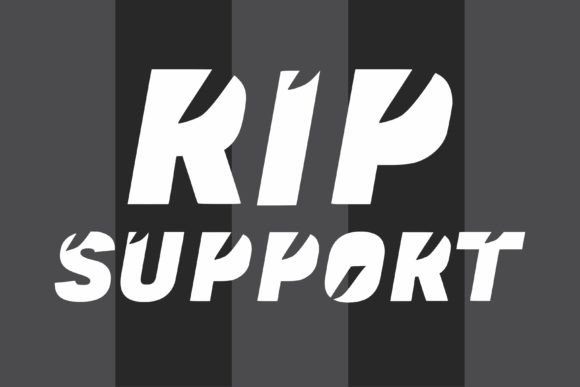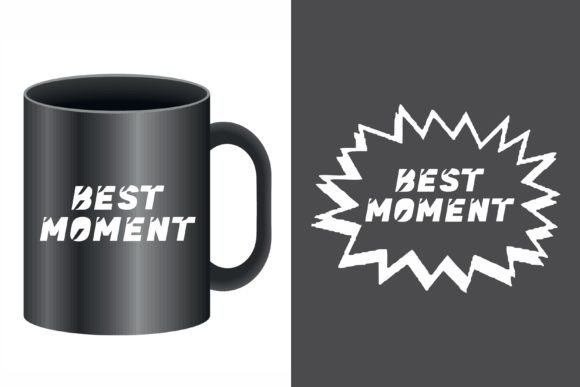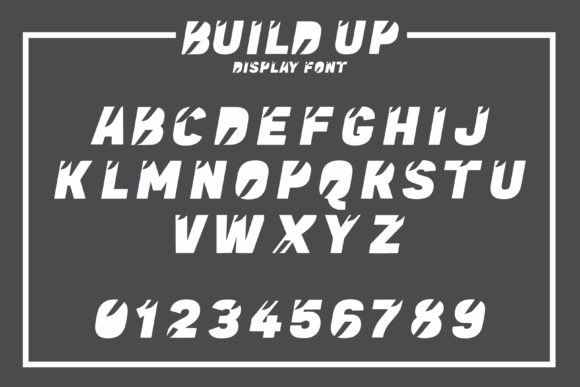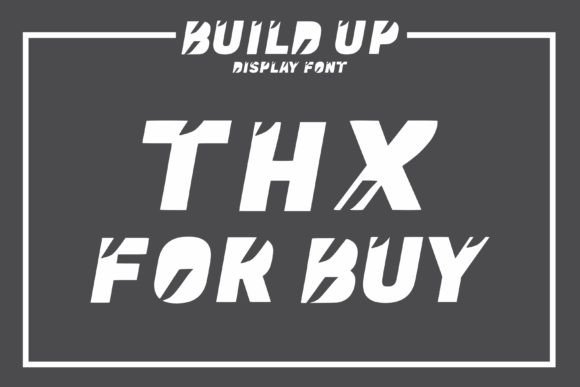
Introducing Build Up Font: The Ultimate Display Font for Confident Designs
Are you tired of using the same old fonts in your designs? Do you want to add a touch of confidence and personality to your projects? Look no further than Build Up Font, a cool and modern display font that’s sure to take your designs to the next level.
What is Build Up Font?
Build Up Font is a striking display font that exudes a strong and confident personality. With its unique details on each side of the lettering, this font is perfect for designers who want to make a statement. Whether you’re working on a logo, a headline, or a title, Build Up Font is sure to grab attention and leave a lasting impression.
Key Features of Build Up Font
- Unique and Striking Details: Build Up Font features striking details on each side of the lettering, giving it a distinctive and eye-catching look.
- Cool and Modern Design: This font has a cool and modern aesthetic that’s perfect for designers who want to create fresh and contemporary designs.
- Strong and Confident Personality: Build Up Font evokes a strong and confident personality, making it perfect for designs that require a bold and assertive look.
- Versatile and Easy to Use: This font is easy to use and can be applied to a wide range of design projects, from logos and headlines to titles and more.
Why Choose Build Up Font?
So why choose Build Up Font over other display fonts? Here are just a few reasons:
- Stand Out from the Crowd: With its unique details and striking design, Build Up Font is sure to help your designs stand out from the crowd.
- Perfect for Logos and Headlines: This font is perfect for logos, headlines, and titles, where a bold and attention-grabbing look is essential.
- Easy to Read and Understand: Despite its bold and striking design, Build Up Font is easy to read and understand, making it perfect for designs that require clarity and legibility.
- High-Quality and Professional: Build Up Font is a high-quality and professional font that’s perfect for designers who want to create polished and sophisticated designs.
How to Use Build Up Font in Your Designs
Using Build Up Font in your designs is easy. Here are a few tips to get you started:
- Pair it with Other Fonts: Build Up Font looks great when paired with other fonts, such as sans-serif fonts or script fonts.
- Use it for Headlines and Titles: This font is perfect for headlines and titles, where a bold and attention-grabbing look is essential.
- Experiment with Different Colors: Build Up Font looks great in a range of colors, from bold and bright to subtle and muted.
- Use it to Create a Statement Piece: Build Up Font is perfect for creating a statement piece, such as a logo or a headline, that grabs attention and leaves a lasting impression.
In conclusion, Build Up Font is a cool and modern display font that’s perfect for designers who want to add a touch of confidence and personality to their projects. With its unique details, striking design, and versatile and easy-to-use features, this font is sure to take your designs to the next level. So why wait? Add Build Up Font to your projects today and enjoy the results!